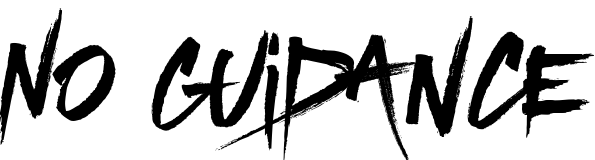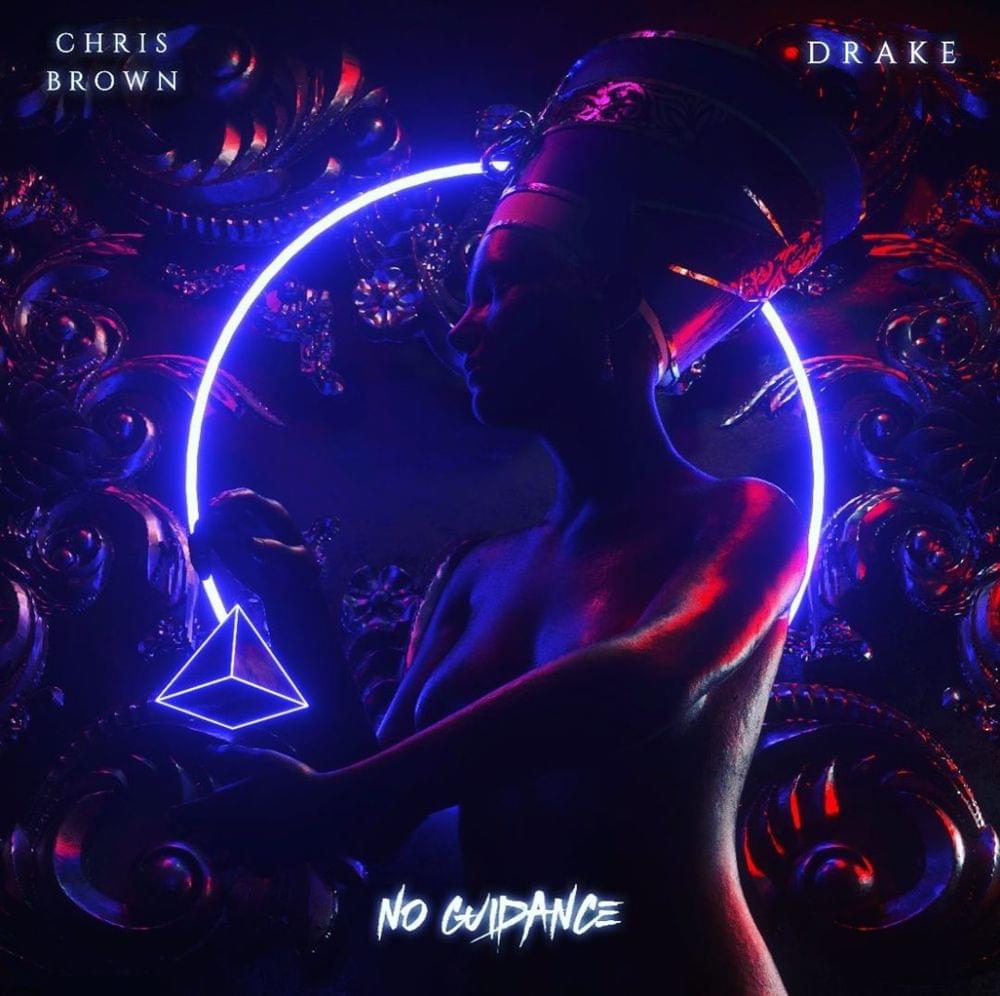
No Guidance Font
The song title on the cover art uses Sam Parrett's brush script font called Sickamore, while the artist names in the smaller text appear to be in the Cinzel Regular font. You can get Cinzel from the Fonts Used Section free of cost.